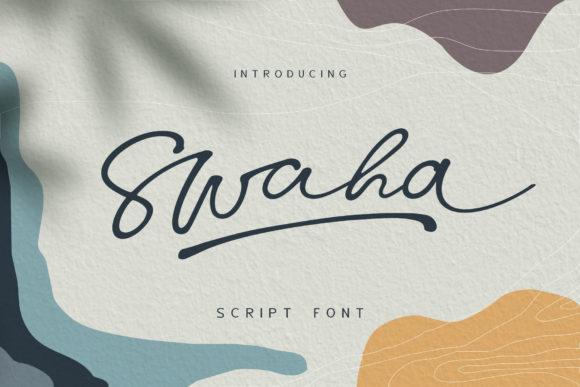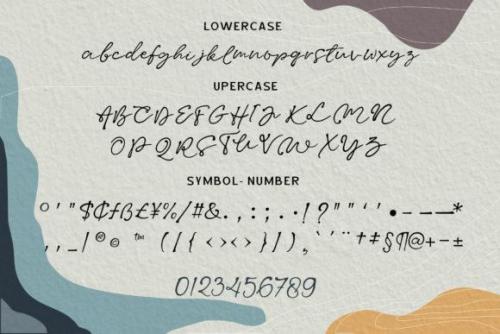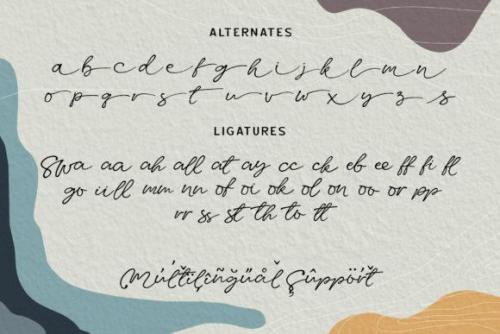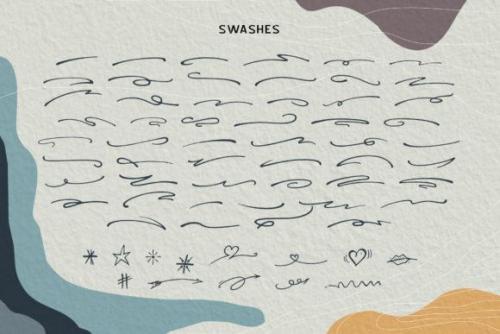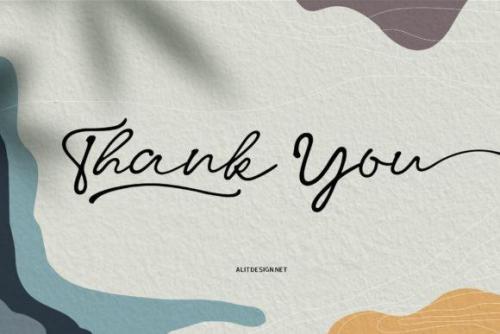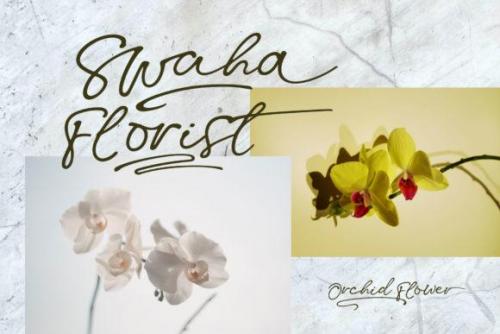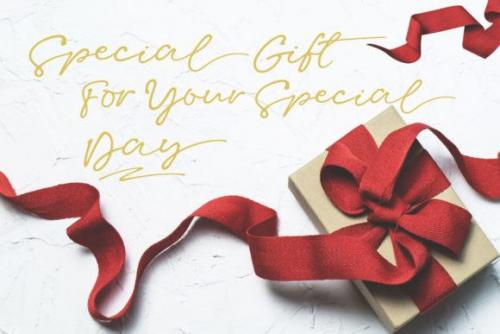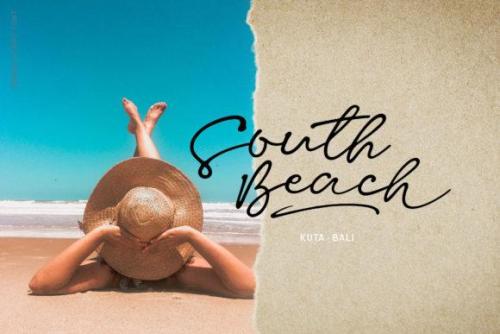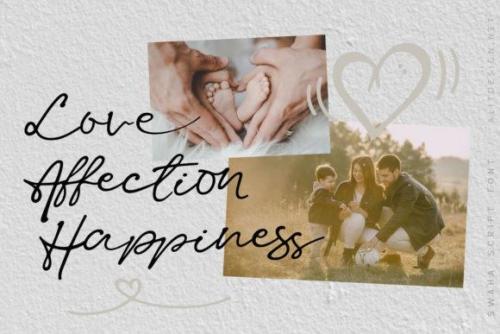
Swaha is a sweet and friendly handwritten font. Its natural and unique style makes it incredibly fitting for a large pool of designs. The only limit is your imagination!